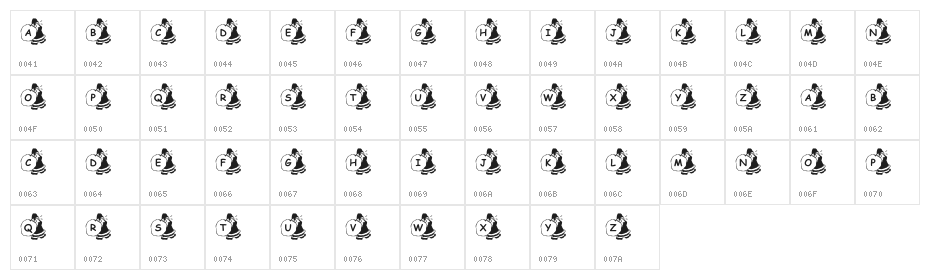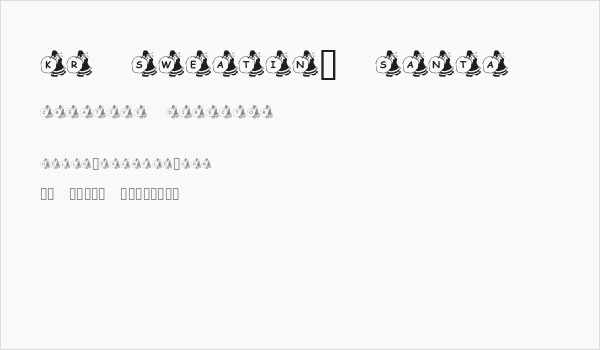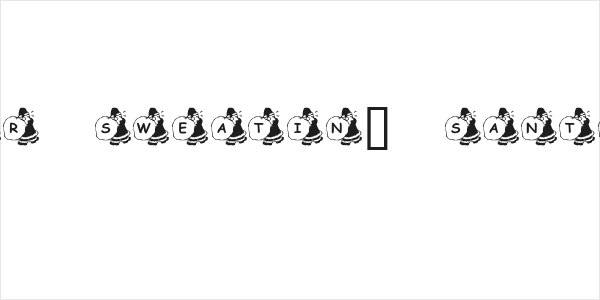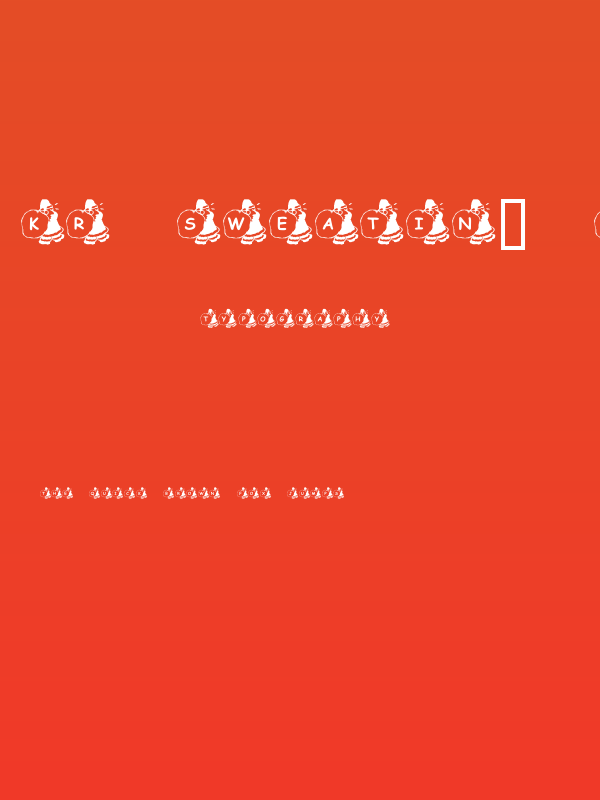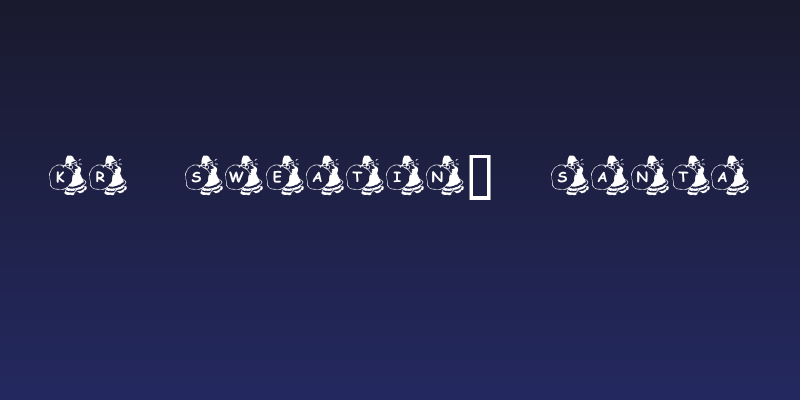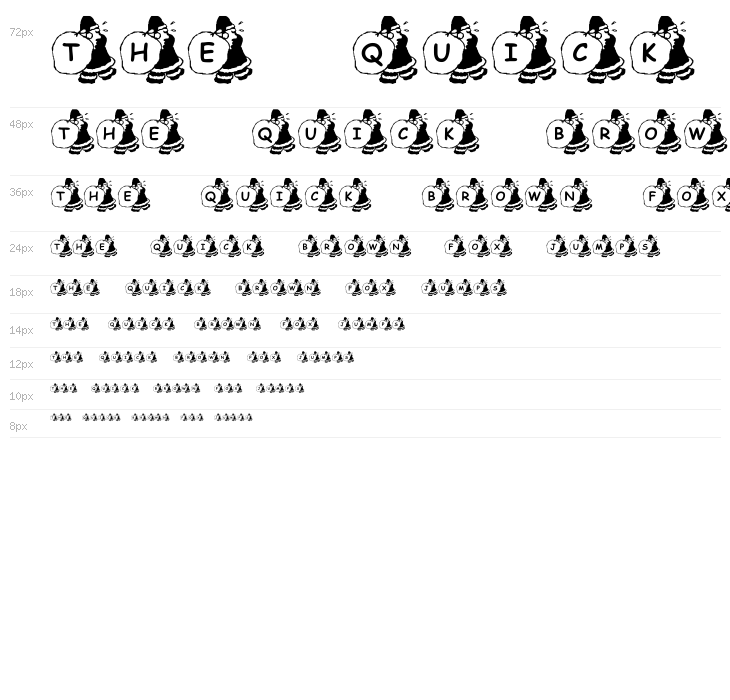
KR Sweatin' Santa Font
KR Sweatin' Santa Description
This playful and whimsical font features each letter encapsulated within a cartoonish Santa Claus figure, adding a festive and humorous touch to any design. The characters are bold and easily recognizable, making them suitable for holiday-themed projects. The design is consistent across both uppercase and lowercase letters, maintaining the Santa motif throughout. The font does not include numbers or special characters, focusing solely on the alphabet. Its unique style is perfect for creating eye-catching headlines or decorative elements in Christmas cards, party invitations, or seasonal advertisements.
| Overall Style | Whimsical, Festive |
| Use Case | Headlines, Decorative elements |
| Proposed Projects | Christmas cards, holiday party invitations, festive advertisements, seasonal decorations. |